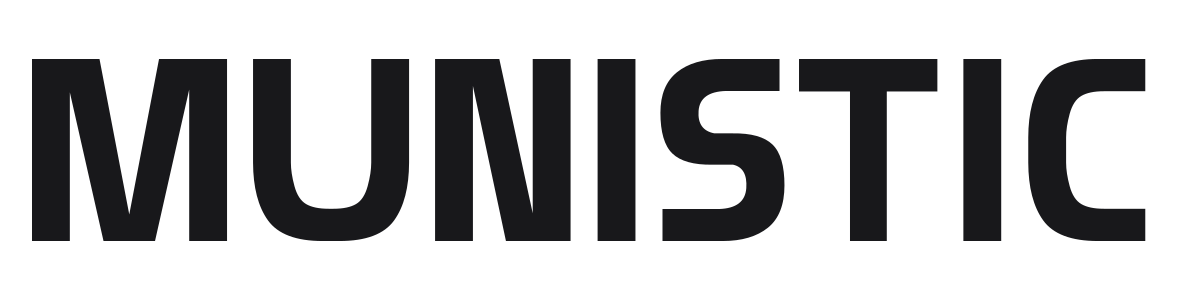
Munistic
by Daymarius
Munistic is a bold, condensed geometric sans from Daymarius with heavy uppercase letterforms packed tight into narrow frames. The overall effect feels industrial and utilitarian, like signage on factory walls or military stencil work stripped of its cutouts. Built for headlines and display use where you need density and impact in a small horizontal space.